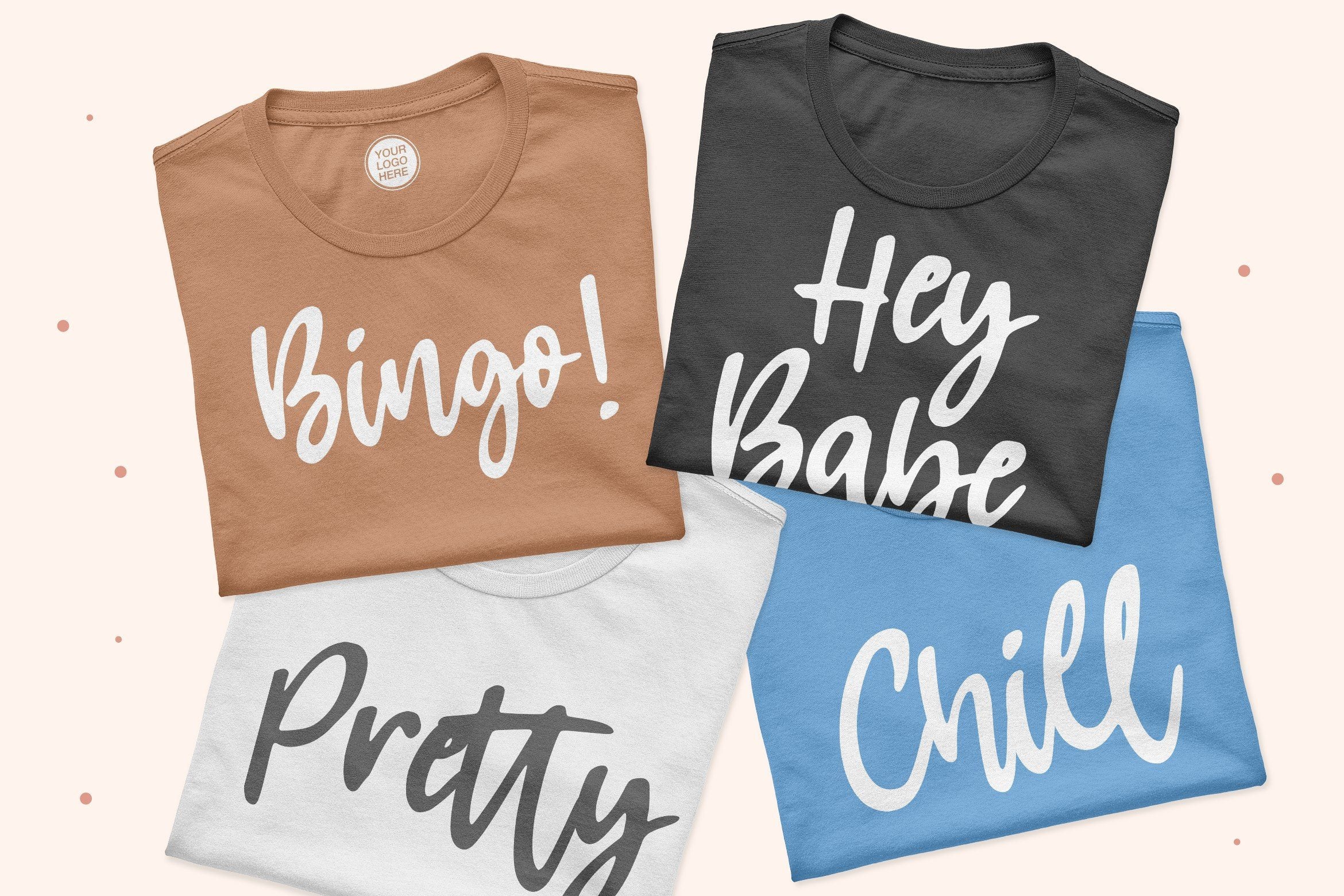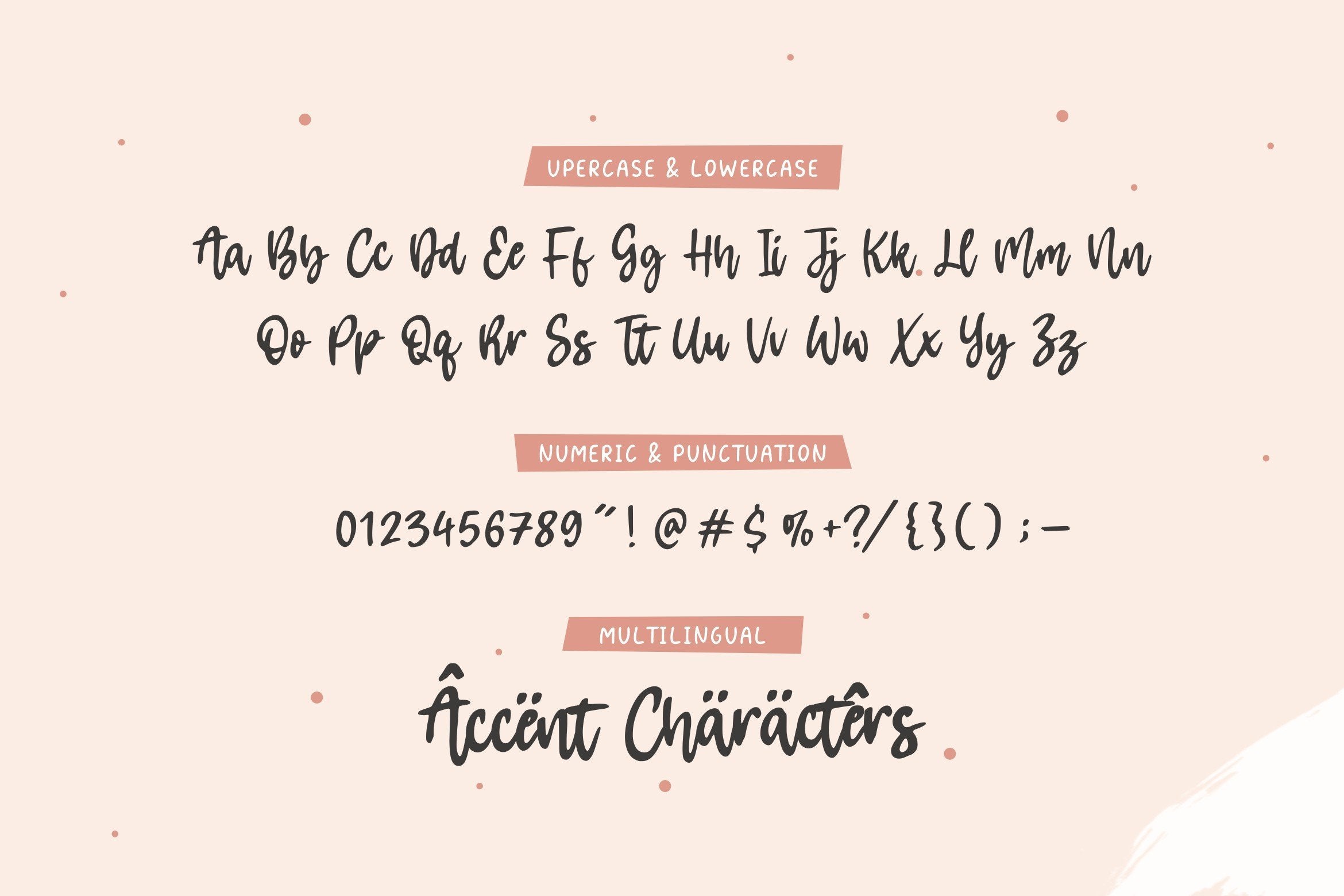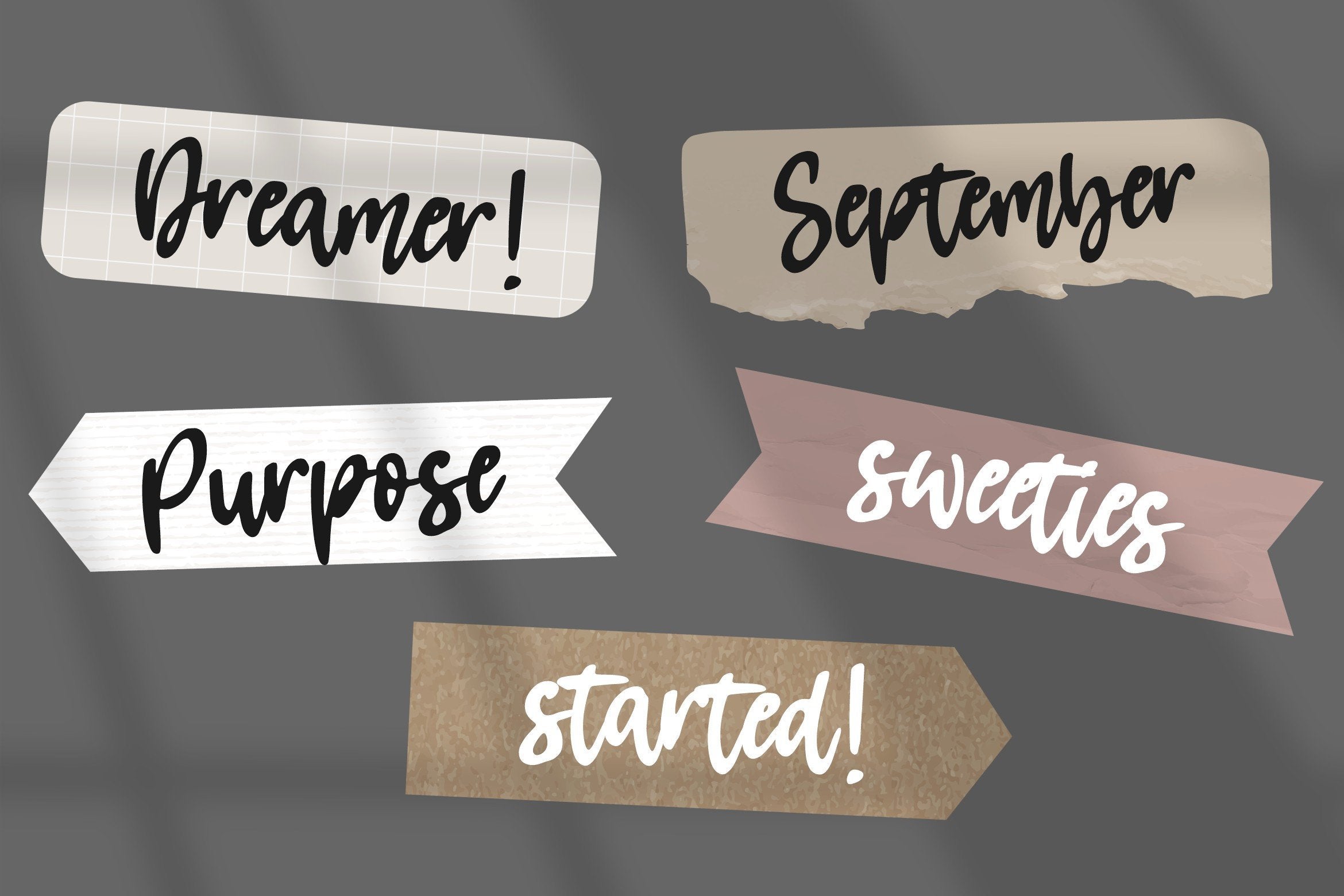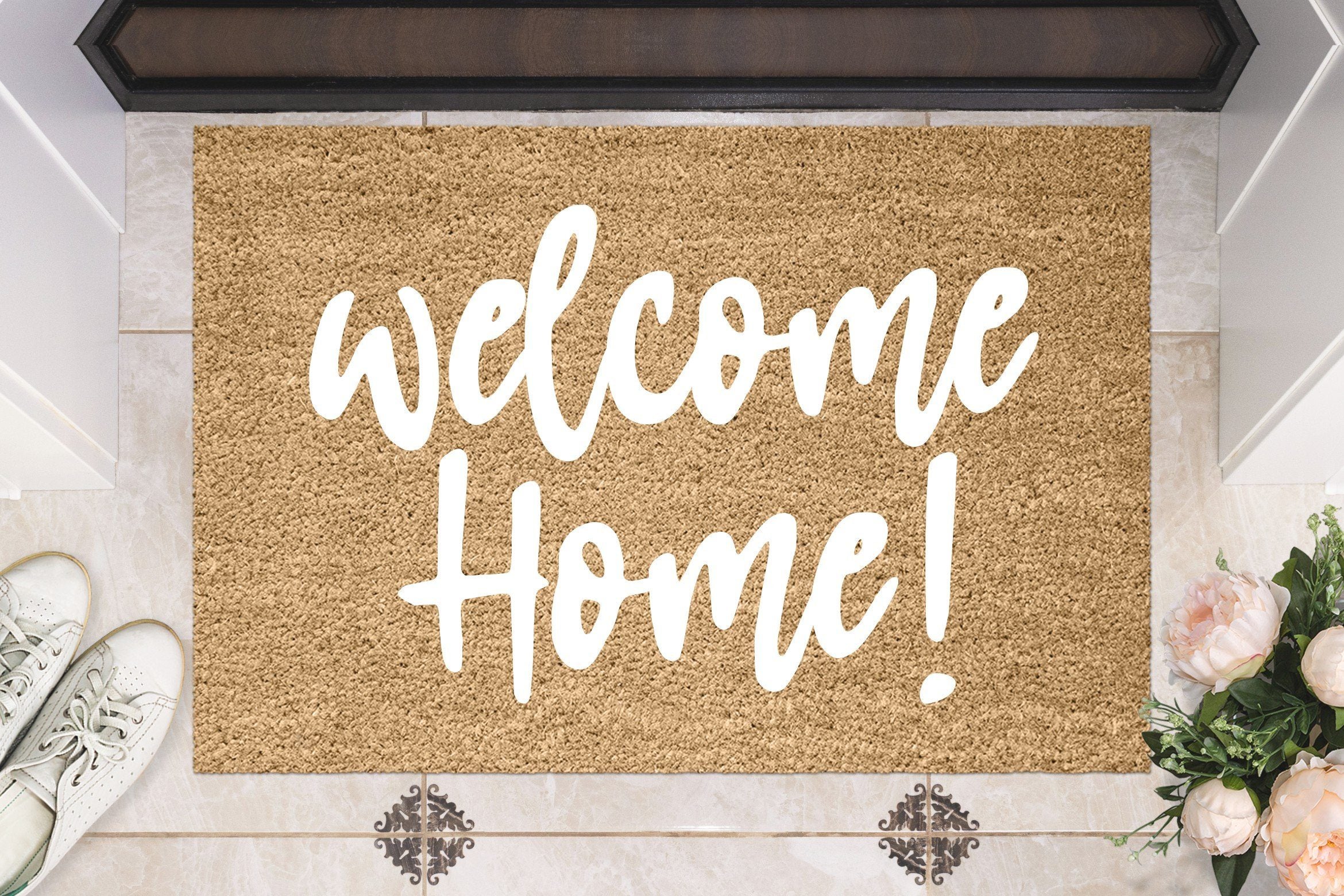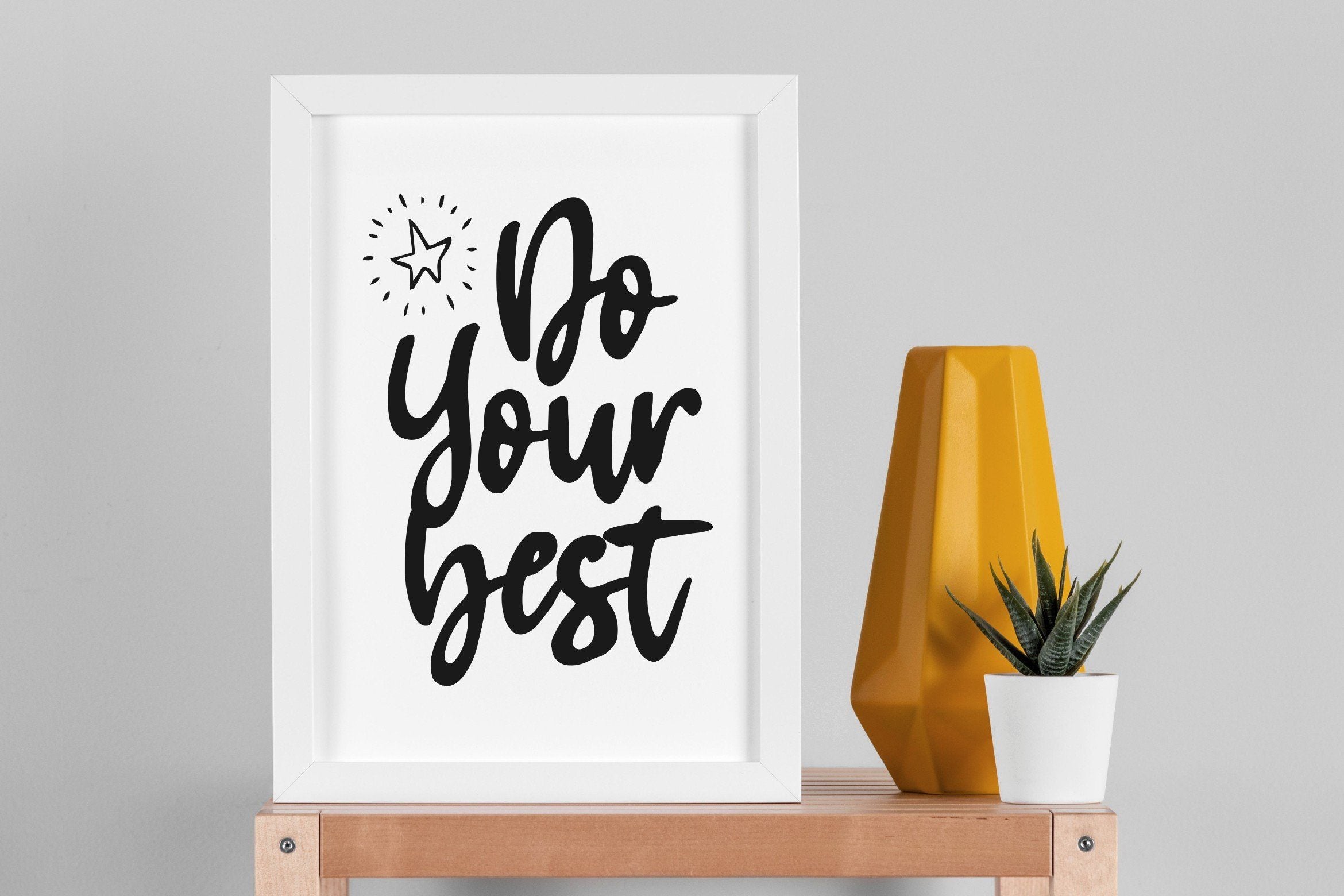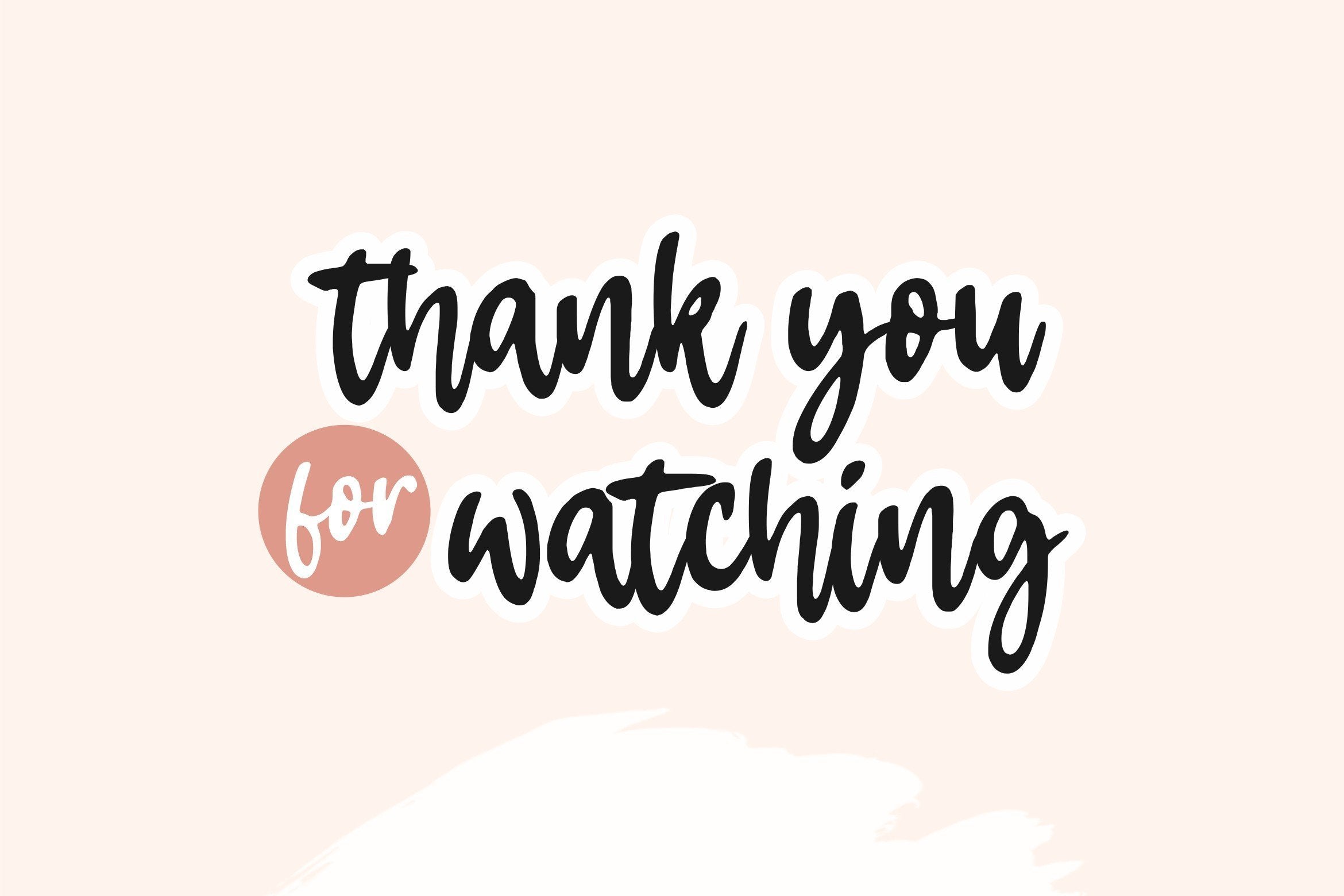
Tropicale Modern Handwritten Font
Tropicale Modern Handwritten Font Poster 1
About Tropicale Modern Handwritten Font
Introducing by Balpirick Studio. Proudly Present, Tropicale Font. Tropicale is a Modern Handwritten Font. Tropicale is a sweet and cursive handwritten font. This gentle font will look gorgeous on a variety of design ideas. It will add a joyful and romantic touch to each of your projects! This font includes TTF, OTF and WOFF, Tropicale also multilingual support. Enjoy the font, feel free to comment or feedback, send me PM or email. Thank you!